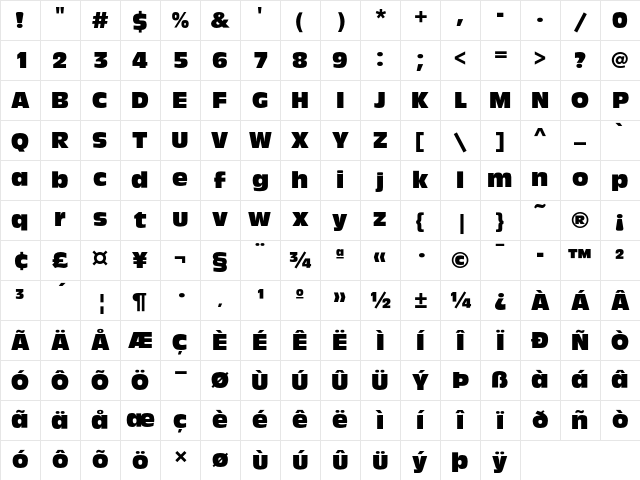
Antique Olive T Compact
Style: Compact
Complete Antique Olive T Compact glyph index. Displaying only characters natively supported by Antique Olive T Compact font.
Design Context for Antique Olive T
Antique Olive T wears its vintage influences proudly, with letterforms that recall mid-century signage, classic packaging, and nostalgia-driven design.